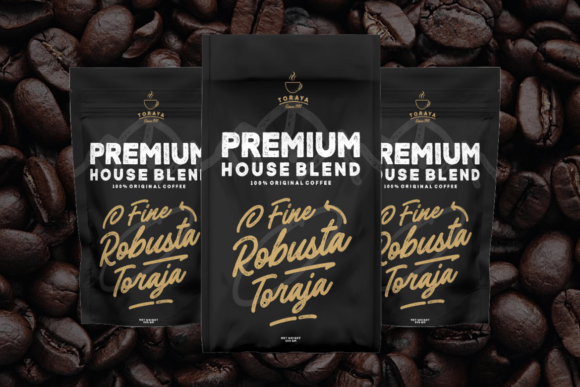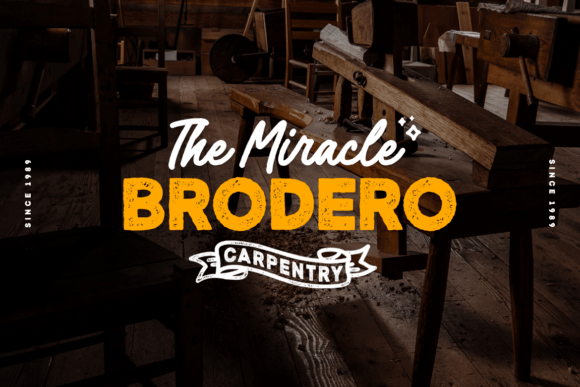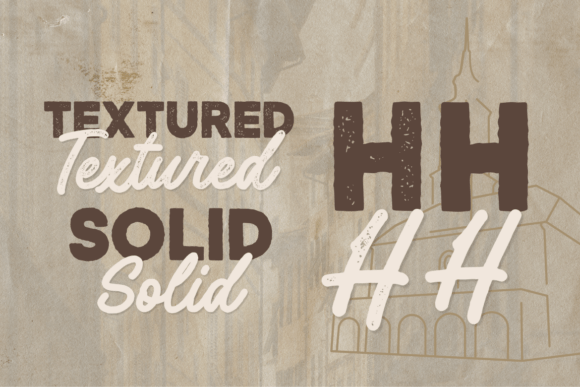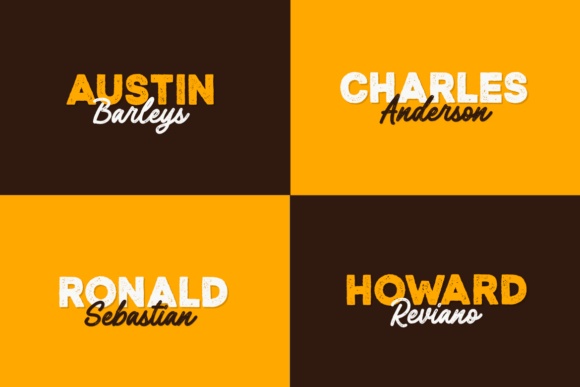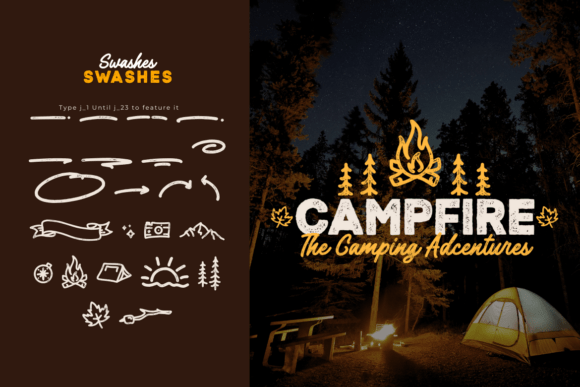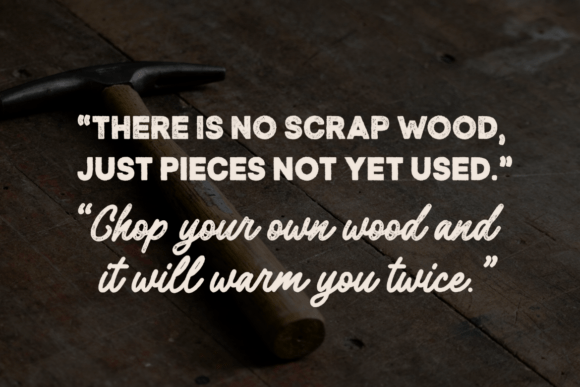
Discover the Perfect Blend: Humble Manford Duo Font
Have you ever found yourself stuck in a creative rut, staring at a blank screen, searching for the perfect font to elevate your design? That’s where the magic happens – and for designers, it’s a moment of pure bliss. Imagine you’re working on a new logo, and suddenly, you stumble upon the perfect combination of styles that bring your vision to life.
Enter Humble Manford Duo Font, a versatile and powerful tool designed to help you create stunning visual identities and marketing materials. This excellent font duo combines script and sans serif styles, along with textured and solid options, giving designers the freedom to explore and create unique designs for logo design, branding, packaging, business cards, and adventure-themed projects. With the Humble Manford Duo Font, you’ll have the creative freedom to push boundaries and bring your designs to life.
Humble Manford Duo Font Key Features
- Font Family: Humble Manford Duo, a unique and elegant script font designed to evoke a sense of sophistication and refinement.
- Character Set: Supports a wide range of characters, including Latin, Cyrillic, and Greek alphabets, as well as various punctuation and symbol sets.
- Size: The font family includes multiple weight and style variations, ranging from 100 to 900, allowing for precise control over the font’s appearance.
- Unique Characteristics: The Humble Manford Duo font features a distinctive, handwritten feel with subtle variations in stroke width and letterform design, giving it a personal and artistic touch.
Humble Manford Duo Font Review
After working with the Humble Manford Duo font, I have to say it’s a solid choice for those looking for a clean, modern sans-serif font. ✨ The font’s versatility shines through in both digital and print applications, making it a great option for a wide range of projects. ✨ The pairing of the two font weights also adds an extra layer of depth and sophistication, which can elevate a design from good to great.
However, there are some limitations to consider. ⚠️ The font’s limited character set and language support might be a concern for designers working on projects that require a wide range of languages or special characters. Additionally, the font’s design, while clean and modern, may not be the best choice for projects that require a more traditional or classic look.
Overall, I’d say the Humble Manford Duo font is a great addition to any designer’s toolkit, but it’s not a one-size-fits-all solution. It’s best suited for modern, minimalist designs that require a clean and sophisticated look.
- Modern sans-serif design
- Two font weights for added depth and sophistication
- Wide range of language support
- Available for digital and print applications
1. Use it for titles and headings to add a touch of elegance to your designs.
2. Pair it with other fonts to create a unique and interesting typography combination.
3. Use it for digital designs, such as website headers and social media graphics.
Alternatives to Humble Manford Duo Font
The Great Vibes Font is a beautiful, elegant script font that is perfect for creating a sophisticated and stylish look. It’s ideal for use in wedding invitations, branding, and other high-end designs. Compared to Humble Manford Duo Font, Great Vibes has a more refined and delicate feel, making it suitable for projects where a touch of luxury is desired.
The Pacifico Font is a modern script font that is perfect for creating a relaxed and casual atmosphere. It’s ideal for use in branding, advertising, and other designs where a friendly and approachable tone is desired. Compared to Humble Manford Duo Font, Pacifico has a more open and airy feel, making it suitable for projects where a sense of calmness is needed.